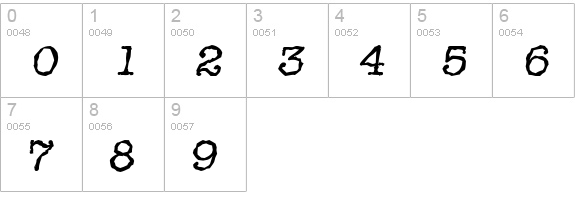
TypewriterRandom-Italic Font Details
TypewriterRandom-Italic is a distinctive, italic variant in the TypewriterRandom typeface family \xE2\x80\x94 well suited to design and typography projects.
Introducing TypewriterRandom-Italic font, a unique and stylish typeface perfect for adding a touch of retro charm to your designs. With its distinctive italic style and vintage typewriter-inspired look, this font is sure to make a statement in any project. The TypewriterRandom-Italic font offers a blend of classic elegance and modern flair, making it ideal for a variety of creative applications. Whether you're designing invitations, posters, logos, or any other project that calls for a touch of nostalgia, this font is sure to impress. Best of all, TypewriterRandom-Italic font is available for free download at FontsMarket.com. So go ahead and add this versatile and eye-catching font to your collection today!